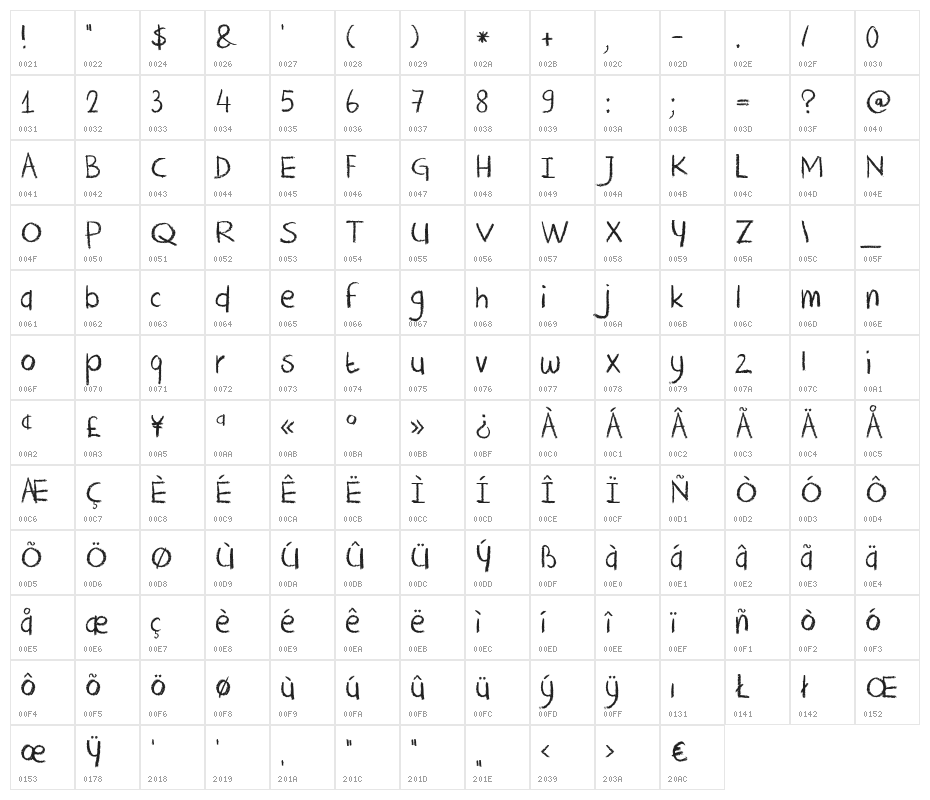
DK Crayon Crumble Font
DK Crayon Crumble Description
This font exudes a playful and textured appearance, reminiscent of crayon drawings on paper. The irregular edges and slightly uneven strokes give it a hand-drawn, childlike charm. Each character maintains a consistent height, yet the varying stroke thickness adds a dynamic quality. The uppercase and lowercase letters are well-proportioned, with a casual and approachable feel. Numbers and special characters follow the same crayon-like aesthetic, making them blend seamlessly with the alphabet. This font is ideal for projects that require a touch of whimsy and creativity.
| Overall Style | Playful, Hand-drawn |
| Proposed Projects | Ideal for children's books, playful branding, educational materials, and creative posters. |